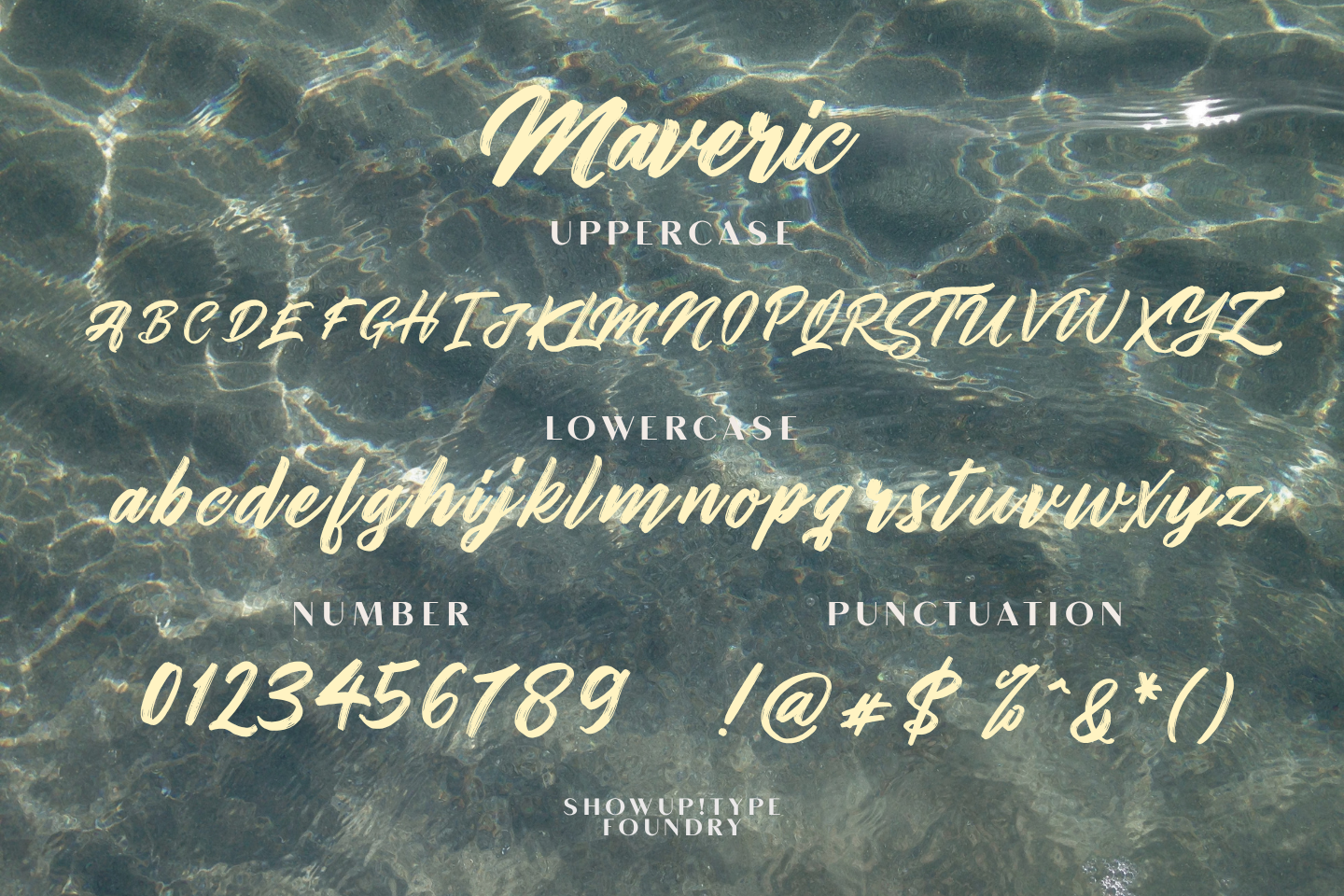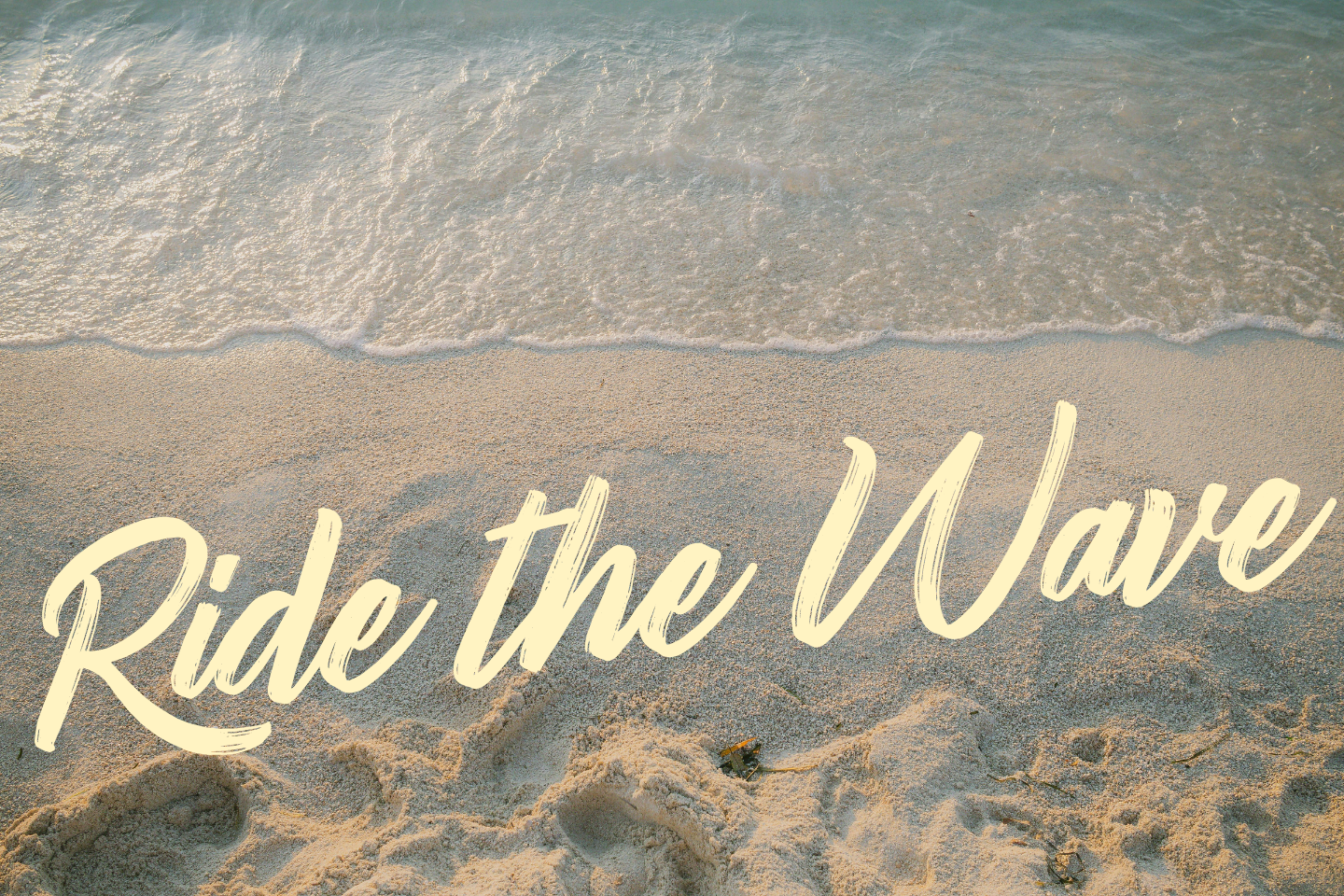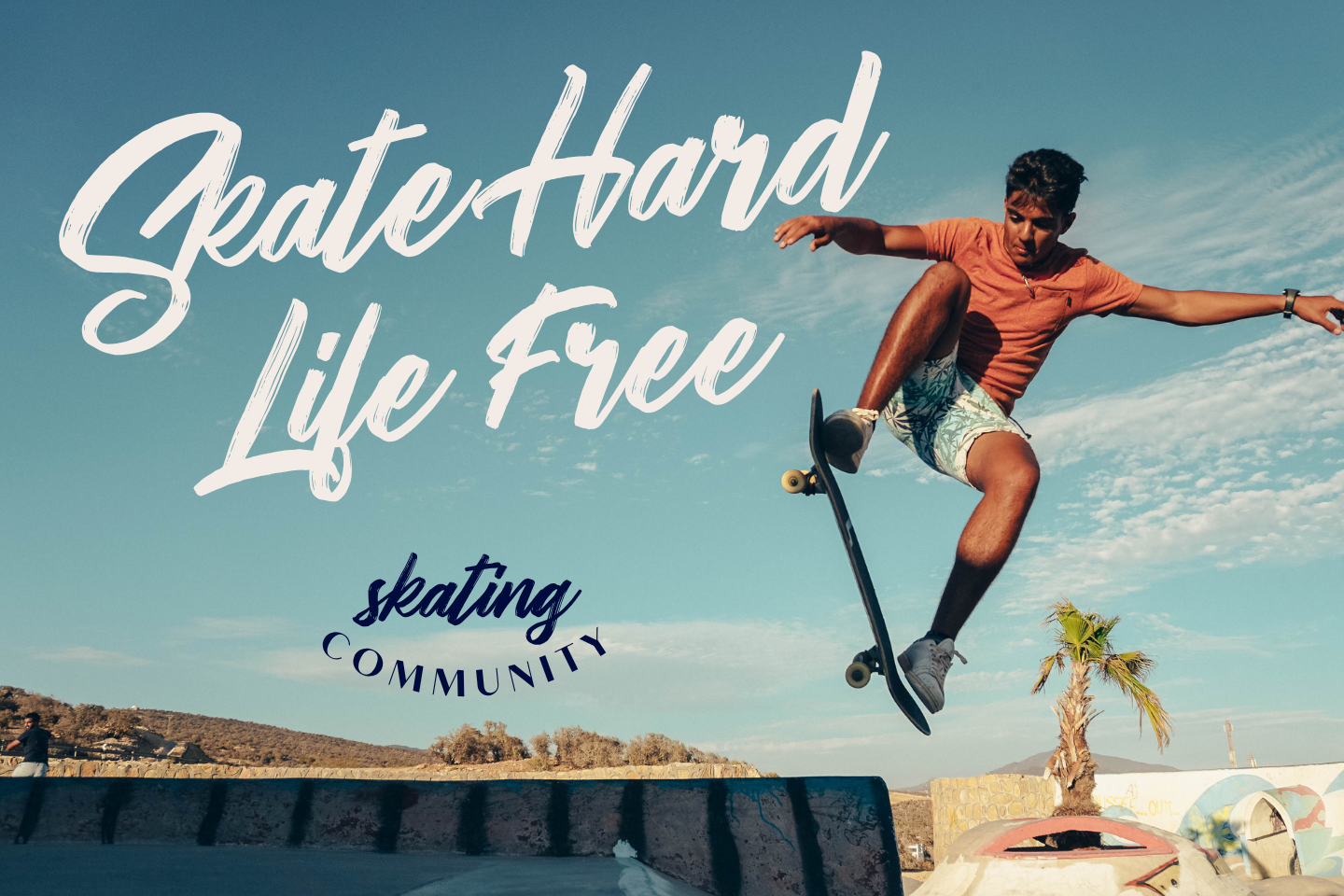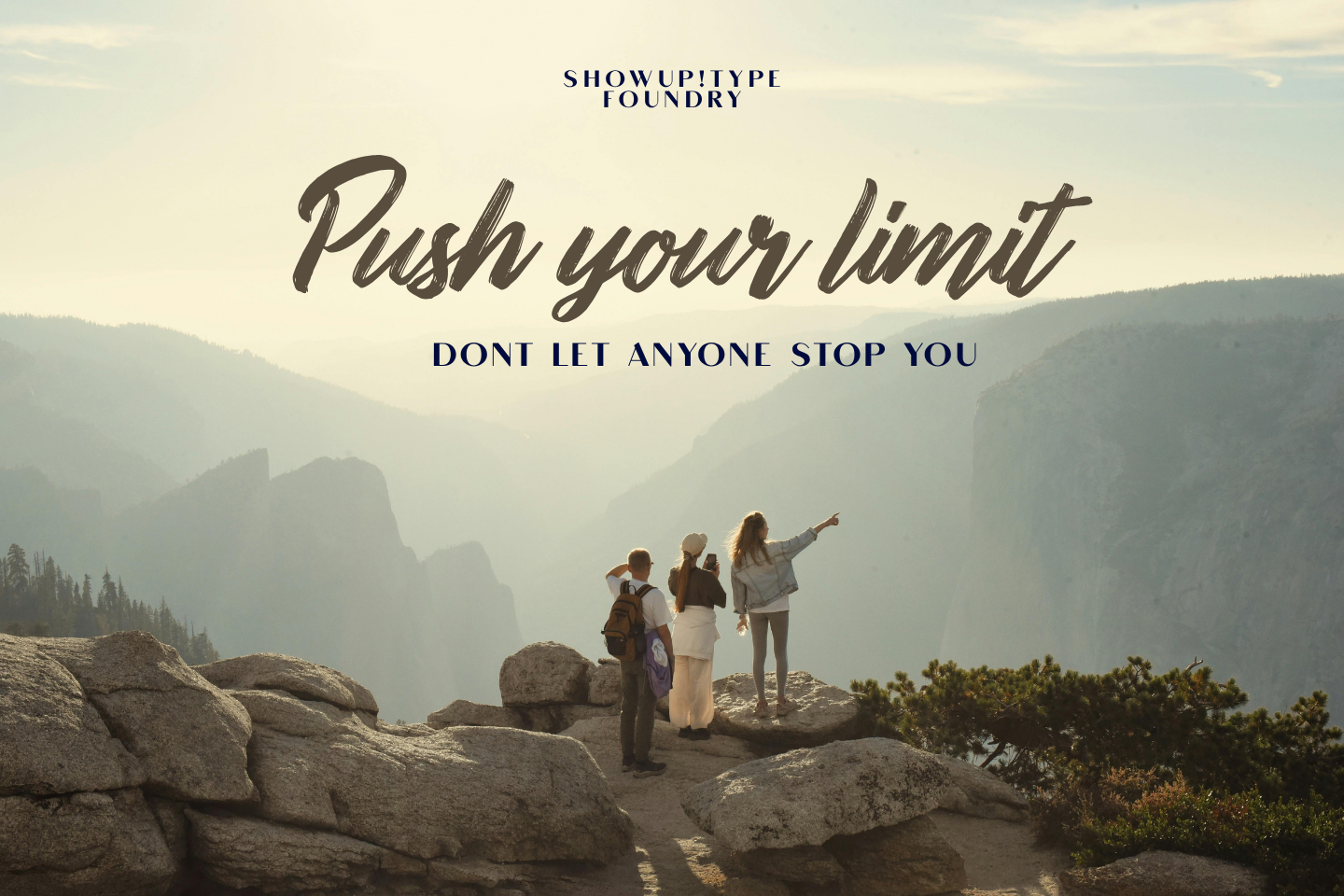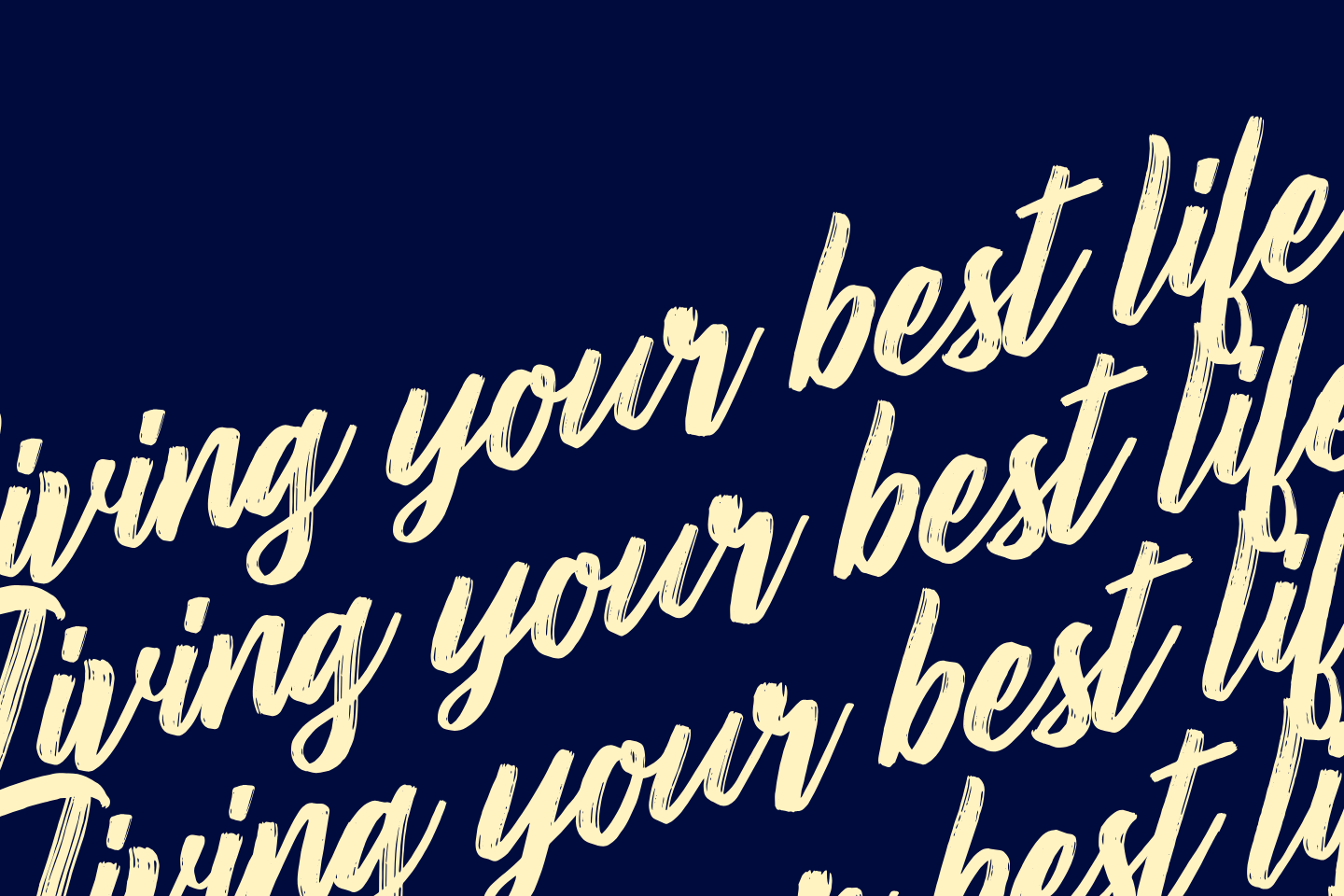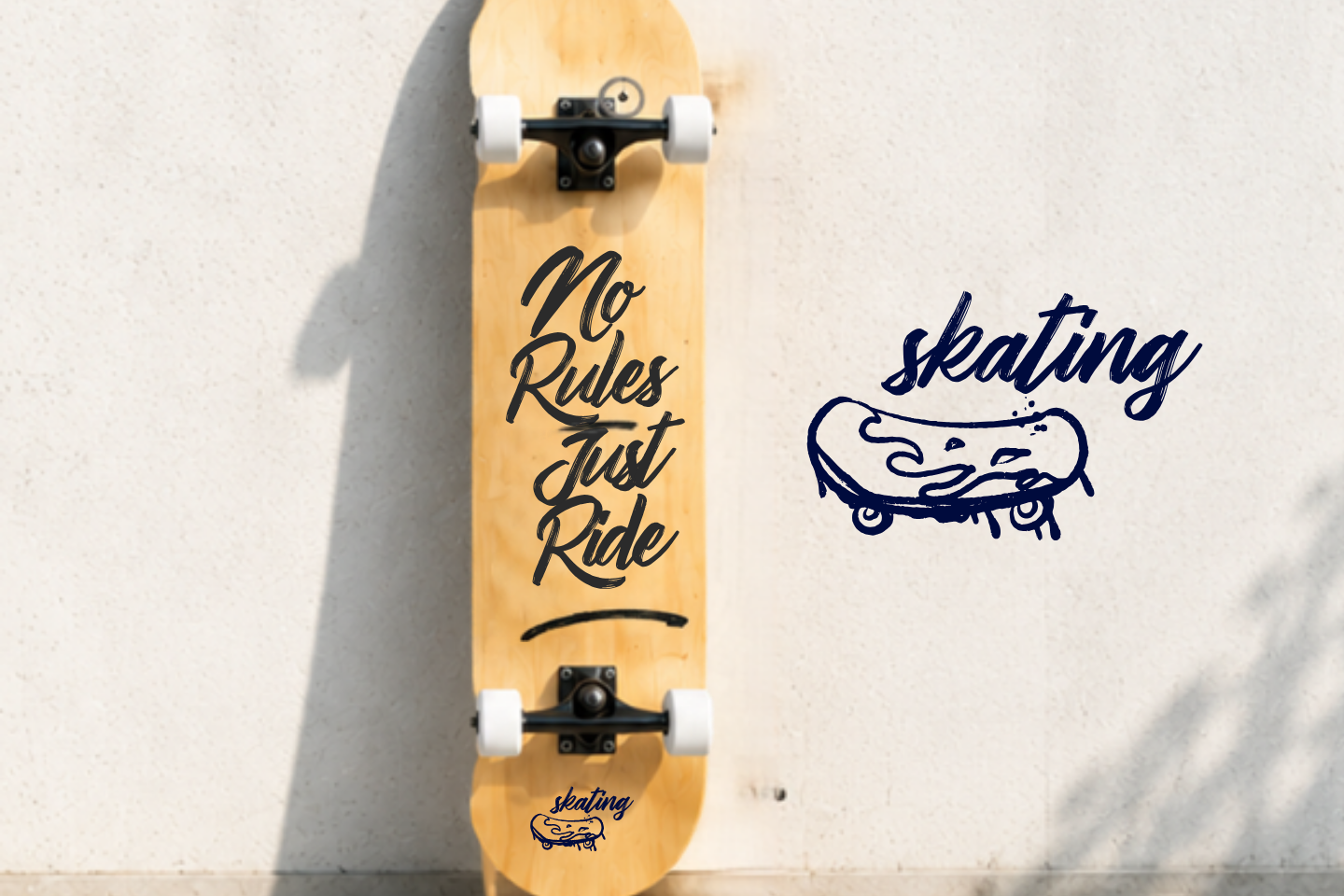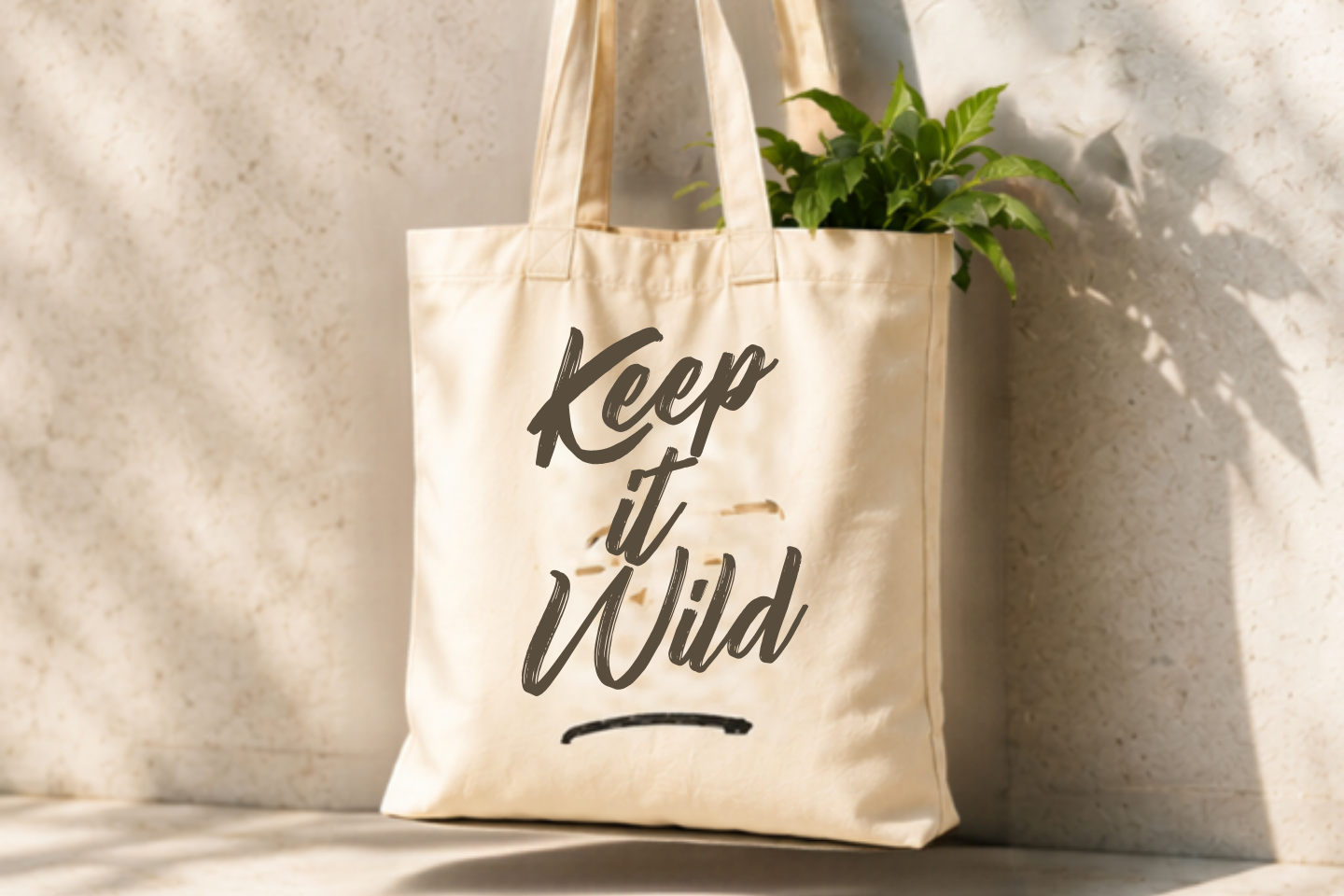
Maveric – Handcrafted Brush Script Font
Introducing Maveric, a bold handcrafted brush script font designed to bring energy, confidence, and personality to your creative projects. Created from authentic brush lettering, Maveric features expressive strokes with a natural handwritten texture, making every design feel unique and full of character.
Whether you're creating modern branding, eye-catching packaging, apparel graphics, or striking social media content, Maveric delivers a strong visual impact while maintaining excellent readability.
Perfect For:
• Logos & Branding
• Product Packaging
• T-Shirt Designs
• Social Media Graphics
• Advertising
• Book Covers
• Album Covers
• Merchandise
• Quotes
• Signage
• Creative Headlines
Font Features:
• Authentic Handcrafted Brush Style
• Numbers & Punctuation
• Stylistic Alternates
• Ligatures